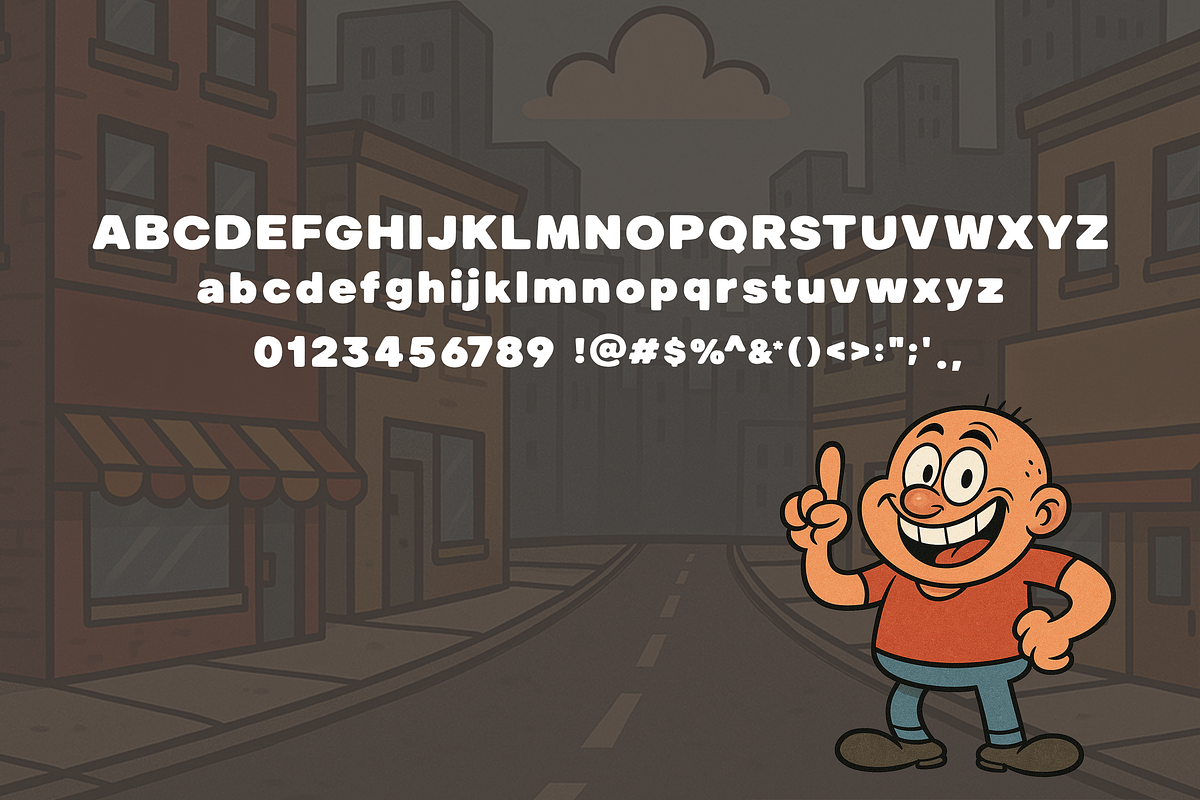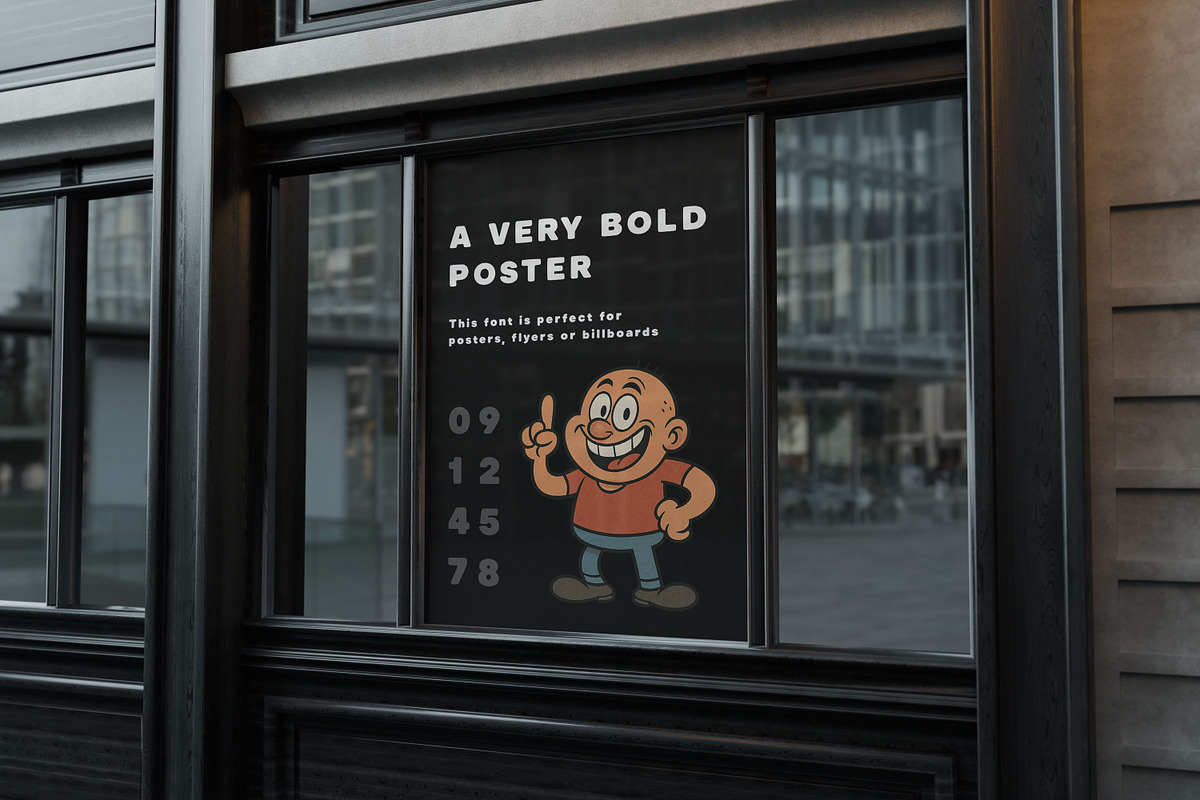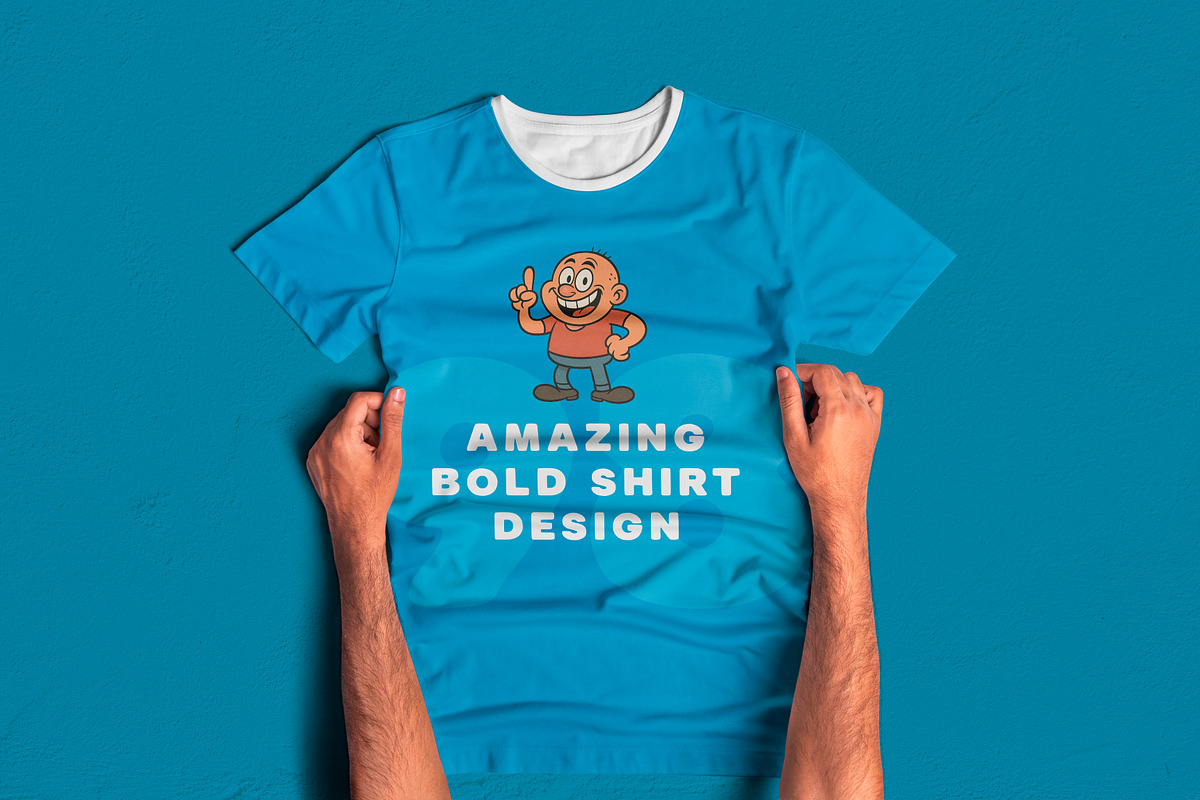
Bold Bastard Font
Say it loud, say it bold. Bold Bastard is a punchy, sans serif display font that brings character, humor, and retro cartoon energy to your designs. Perfect for headlines, logos, packaging, apparel, and anything that needs to shout without saying a word.
This font is designed to stand out with thick strokes, rounded corners, and a cheeky attitude. Whether you're creating vintage comic posters, bold urban branding, or fun t-shirt slogans—Bold Bastard has the charm and weight to carry it.
🖥️ Usage Ideas Bold poster designs T-shirt slogans & merch Cartoon-style branding YouTube thumbnails Retro packaging Meme & comic text Urban/streetwear labels